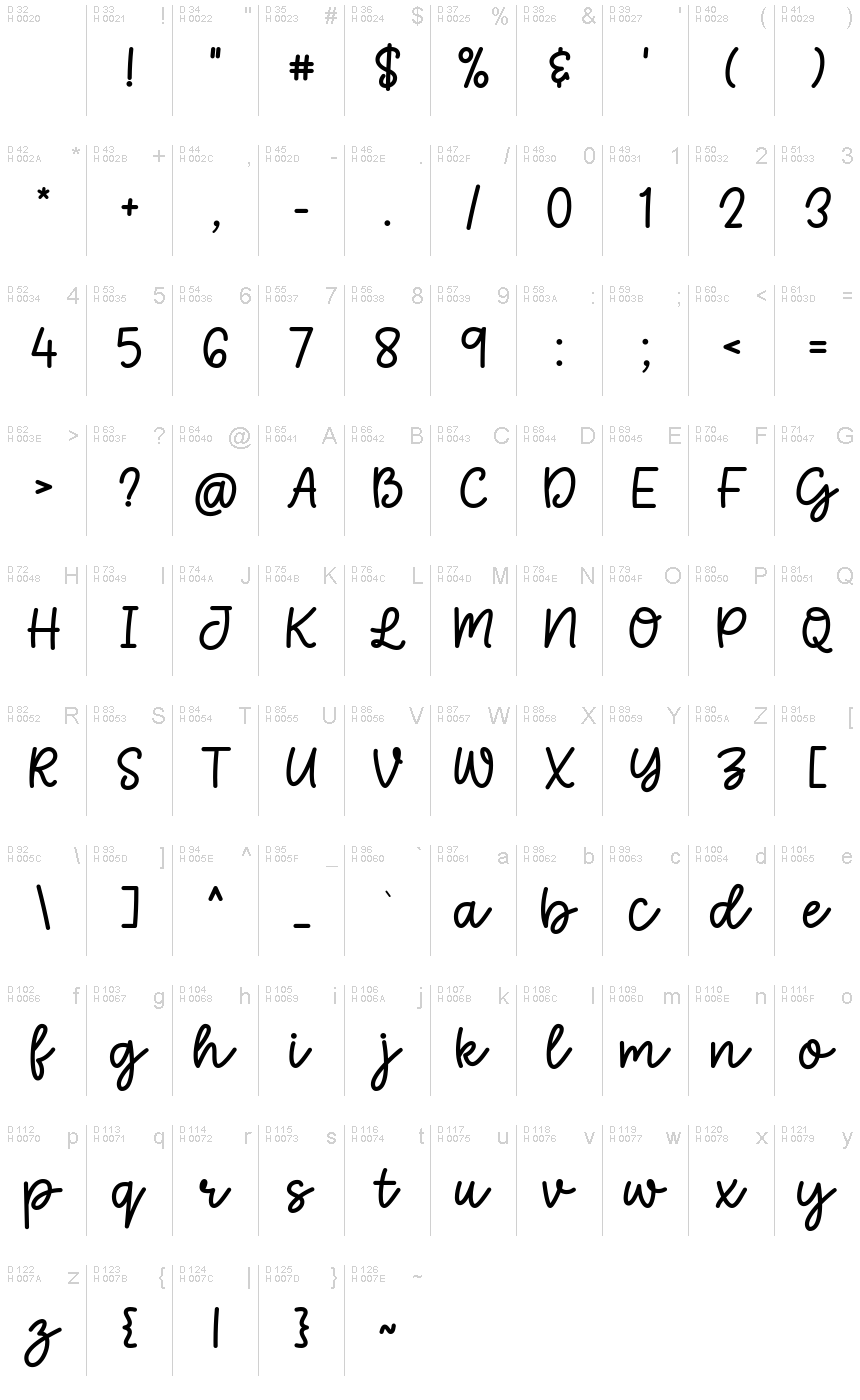
Love Cookies
Love Cookies font by Keithzo is a playful and inviting handwritten font. Its elegant and flowing characters give off a casual and friendly vibe, making it an ideal choice for any fun projects. Let your inner child shine as you combine this lovely free handwriting font with colorful illustrations and set your ideas in motion.
Love Cookies can be used in children’s books, cartoons, typography artwork, comic strips, magazines, notebooks covers, animation short videos or movies, wadding invites or cards design, packaging projects stylish posters.